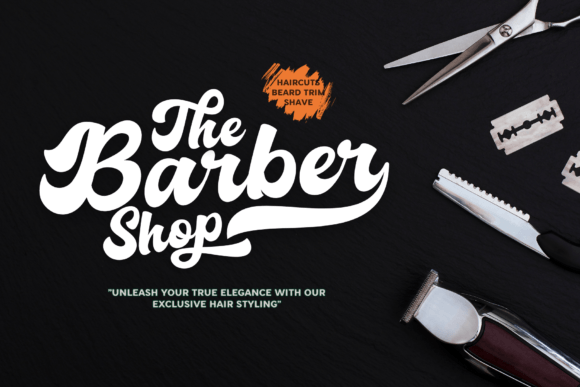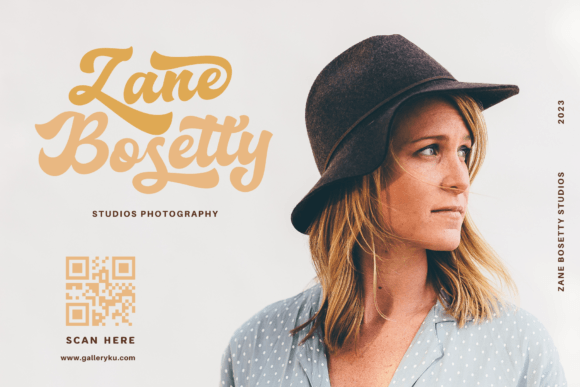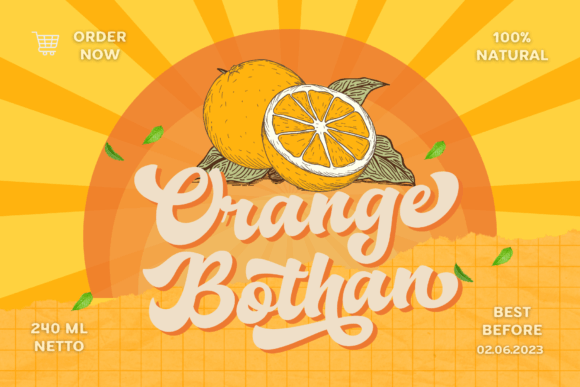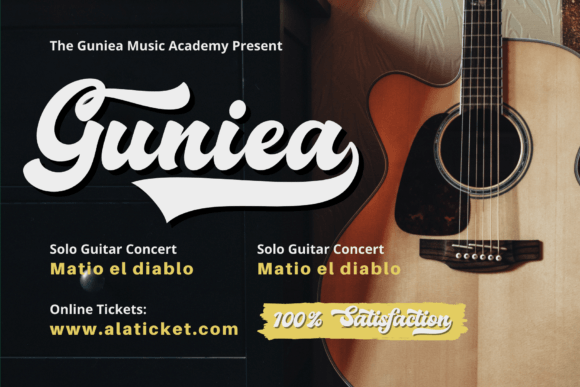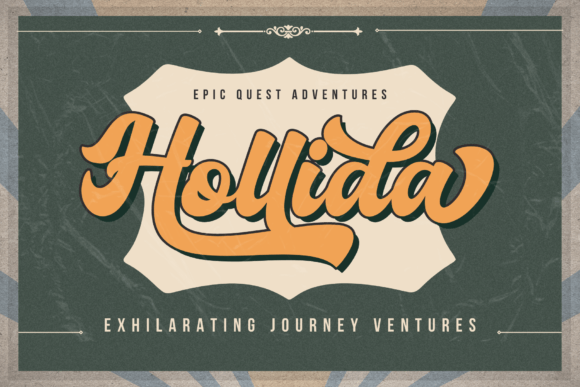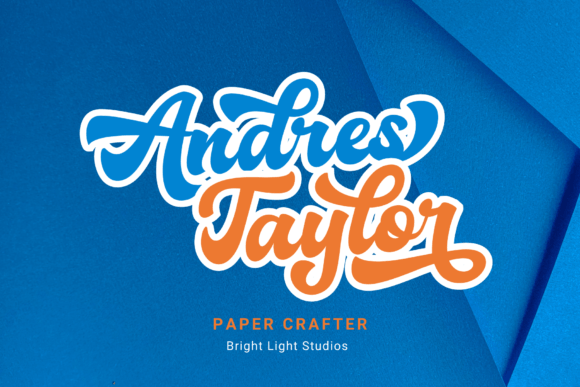
Introduction to Radhesty Font Font
Fonts play a crucial role in design, and the Radhesty Font font is a typeface that brings both character and versatility to any project. Whether you’re working on a branding project, a website, or a print design, the Radhesty Font font offers a unique style that can elevate your work.
Radhesty is a charming retro script font that embodies the essence of nostalgia and vintage aesthetics.
With its distinct letterforms, decorative swashes, and retro-inspired ligatures, it adds a touch of authenticity and personality to your designs Whether youβre working on branding, packaging, posters, or any project that requires a retro touch, this font is a perfect choice.
Key Features of Radhesty Font Font
Why Choose Radhesty Font Font?
The Radhesty Font font is more than just a typeface β it’s a design tool that helps you communicate your message with style and clarity. Its unique character set and versatile design make it suitable for a wide range of applications, from elegant invitations to bold headlines.
With its carefully crafted letterforms and balanced proportions, the Radhesty Font font ensures readability and visual appeal across all mediums.
What makes Radhesty Font font special?
The Radhesty Font font stands out with its unique design, exceptional readability, and versatility across various design applications.